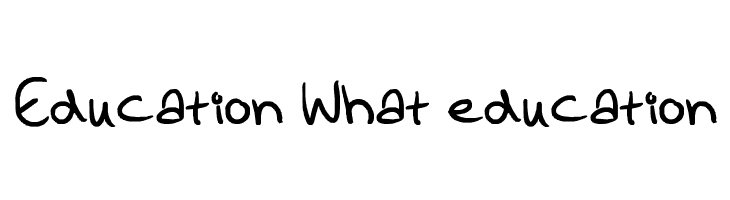
A whimsical, handwritten font with playful, cursive-like strokes.
A bold, spiked font with dynamic, edgy characters.
A bold, playful font with rounded edges and a cohesive design.
A playful, dynamic handwritten font with a casual, flowing style.
A bold, dynamic font with angular cuts and a modern, energetic style.
A flowing, cursive script font with elegant, interconnected strokes.
A bold, condensed font with a playful and energetic style.
A sleek, modern font with thin, geometric lines and a minimalist aesthetic.
A bold, futuristic italic font with rounded strokes and dynamic curves.
A bold, futuristic stencil-style font with geometric cuts and angles.
A modern, narrow font with a clean and geometric design.
A playful handwritten font with smooth, flowing lines and a casual style.
A flowing, elegant script font with a handwritten appearance.
A graceful and elegant script font with flowing, cursive strokes.
A geometric, monospaced font with a modern and structured design.
A playful and whimsical font with rounded, consistent strokes and a friendly appearance.
An elegant script font with flowing, intricate loops and swashes.
A sleek, minimalist font with thin, consistent strokes and a modern aesthetic.
An elegant script font with intricate loops and swirls, perfect for refined and artistic projects.
Elegant, high-contrast decorative script with flowing strokes.
A bold, angular, italic font with a dynamic and aggressive style.
A dynamic brush-style font with bold, expressive strokes.
A whimsical and decorative font with loops and curves.
A bold, jagged, and italicized font with a graffiti-like, hand-drawn style.
A bold, jagged font with a hand-drawn, graffiti-like style.
An elegant, decorative font with intricate swirls and flourishes.
A pixelated, grid-based font with a retro digital aesthetic.
A bold, dynamic brush script font with expressive strokes and a hand-painted look.
A fluid and dynamic handwritten font with smooth, flowing strokes.
An ink-outline font with a hand-drawn, artistic style.
A bold, modern font with rounded edges and a futuristic style.
A distressed, vintage-style font with a textured, handcrafted appearance.
Expressive handwritten script with fluid, connected strokes.
A bold, graffiti-inspired font with a playful, urban style.